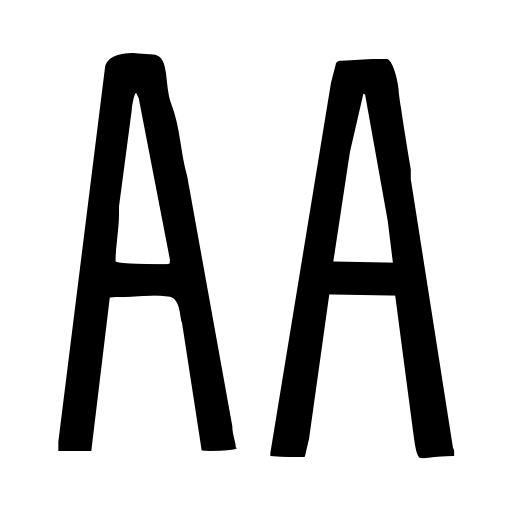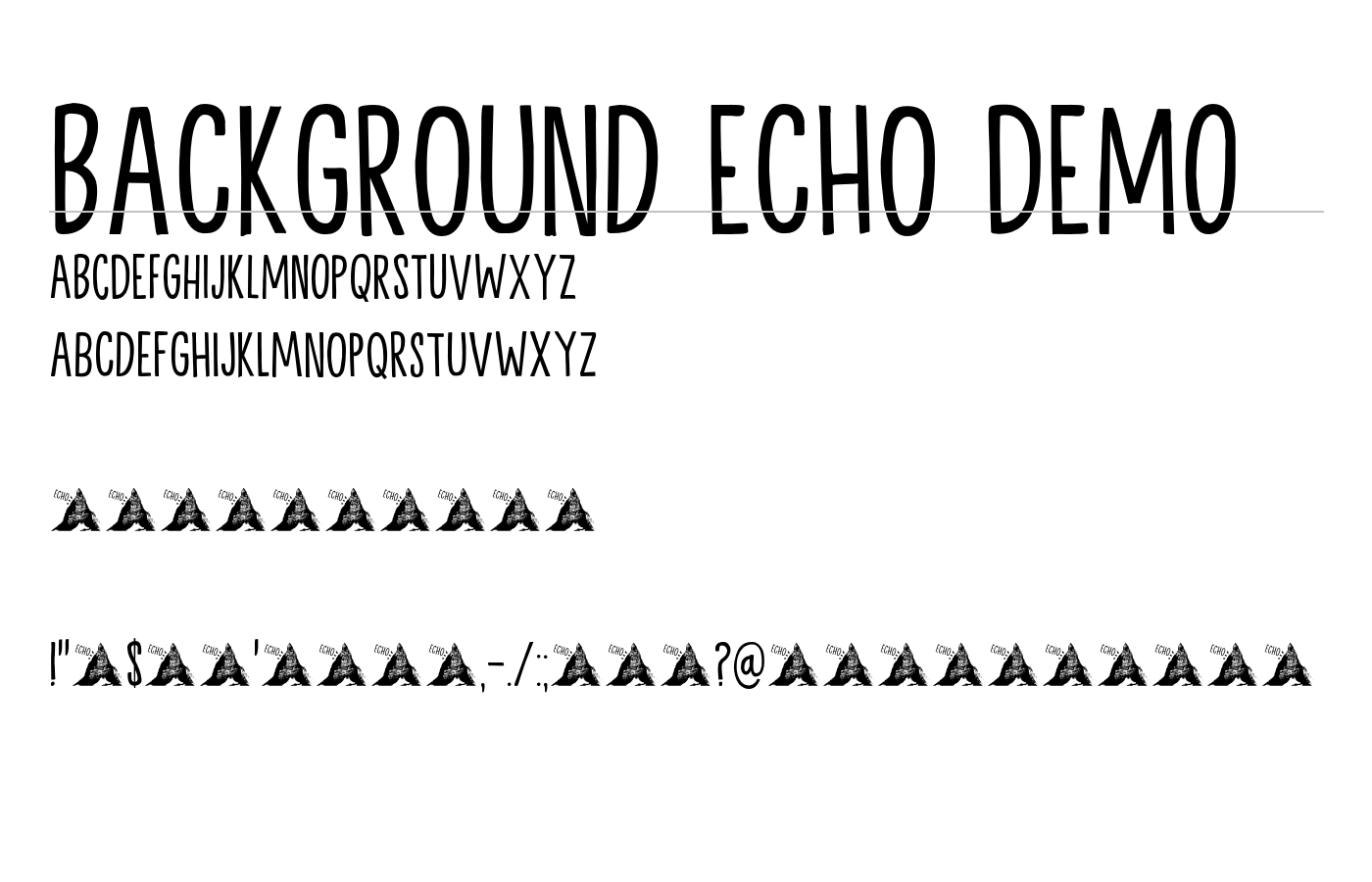
Background Echo DEMO is a tall, narrow sans serif font with a playful and quirky personality. Its irregular, hand-drawn style and uneven strokes give it a casual, approachable feel, making it ideal for creative projects, youth-oriented designs, or any context where a fun and informal tone is desired. This font works best in headlines, logos, or branding that seeks to stand out with a distinctive, lively voice.
Background Echo DEMO Font
About Background Echo DEMO Font
| Font family | Background Echo DEMO Font |